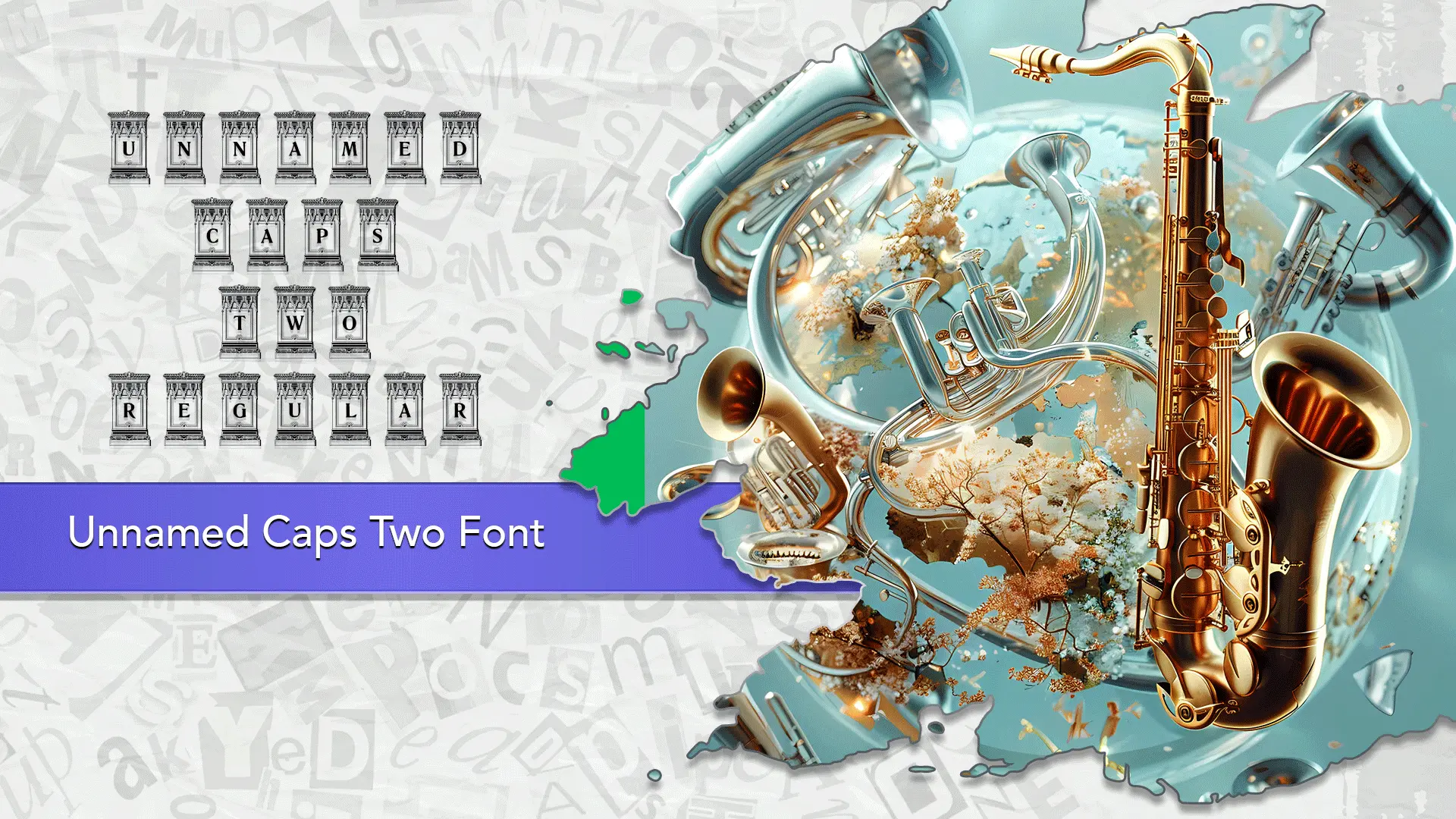
The Unnamed Caps Two font family may be ideal for you if you enjoy working on an artistic design project. The lively, expressive look of this typeface, which was created by Intellecta Design, makes it ideal for High-Impact Headlines and Titles(Posters and Flyers, Magazine and Book Titles, Album Art/Music Packaging), Branding with a Unique, Niche Aesthetic(Boutique Businesses, Event Branding, Logos), Decorative Accents in Print and Digital(Invitations, Certificates and Diplomas, Signage) and other light-hearted visual projects.
Regular are the one primary font styles of the Unnamed Caps Two font family. You may build dynamic, visually appealing text layouts with the distinct flair that each style offers. With crisp, readable lines and a relaxed tone.